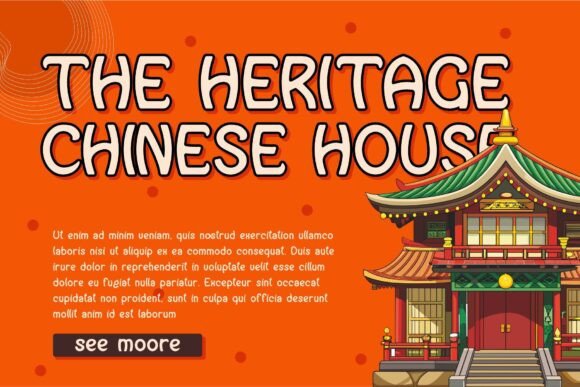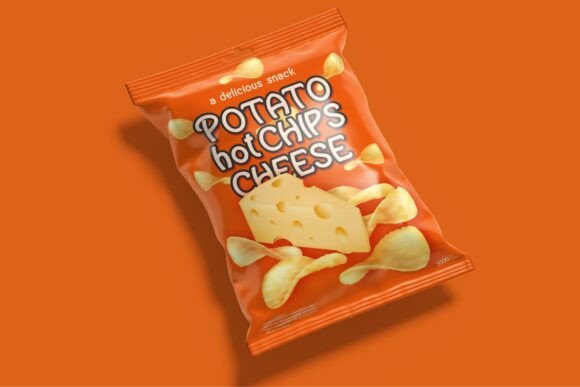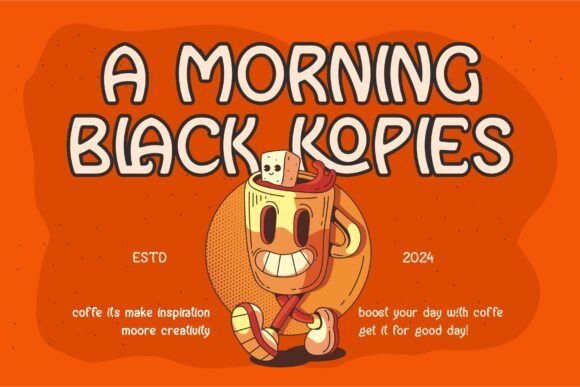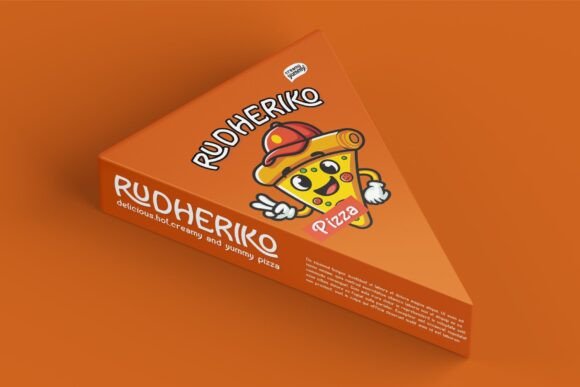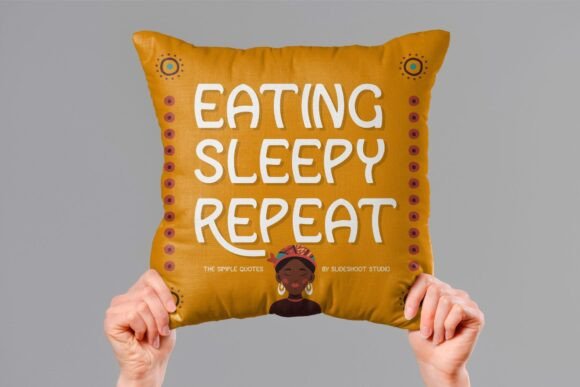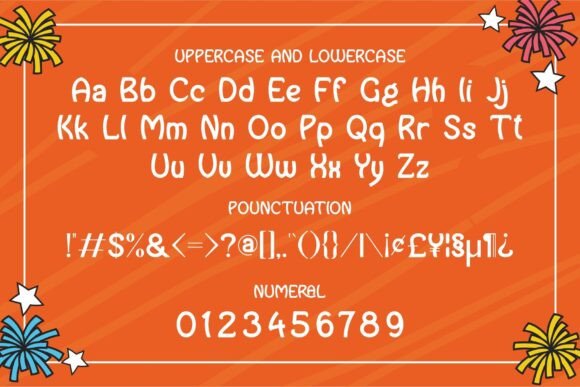
Introduction to Rifanie Font
Introducing Rifanie – an elegant, modern display font.
Its clean and minimalistic style works wonderfully on its own for logos, headlines, posters, packaging, and more With three different weights to choose from, you have a wider range of options to create unique and versatile designs.
Key Features of Rifanie Font
Why Choose Rifanie Font?
Rifanie Font offers exceptional quality and versatility, making it a valuable addition to your design toolkit. Whether you’re creating for personal projects or commercial use, Rifanie Font delivers professional results.